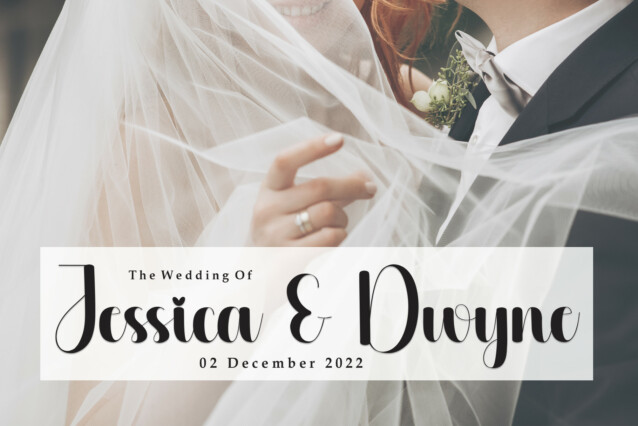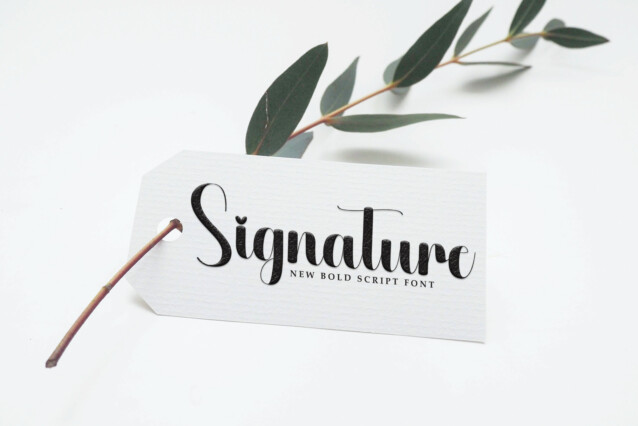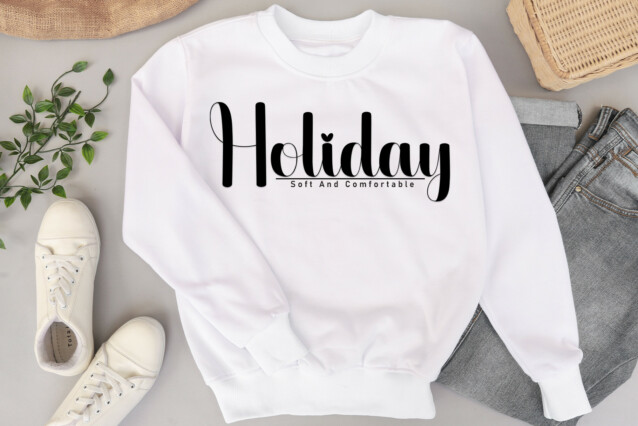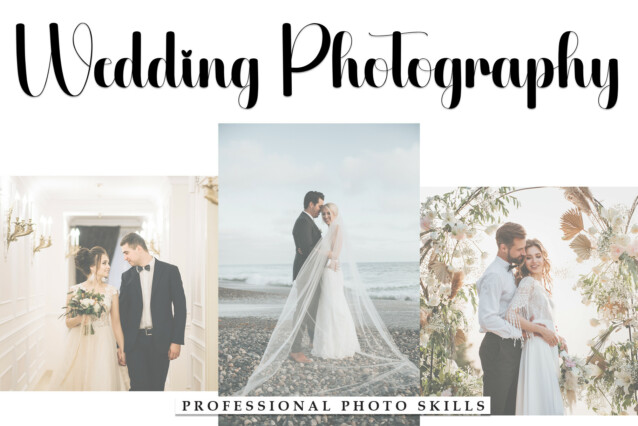
Outdoor Script Typeface
Outdoor Script Typeface is a clean, relaxed and friendly handwritten font. Suitable to a wide variety of designs due to its neat and simple style, this font has the potential to become your favorite go-to font, no matter the occasion!